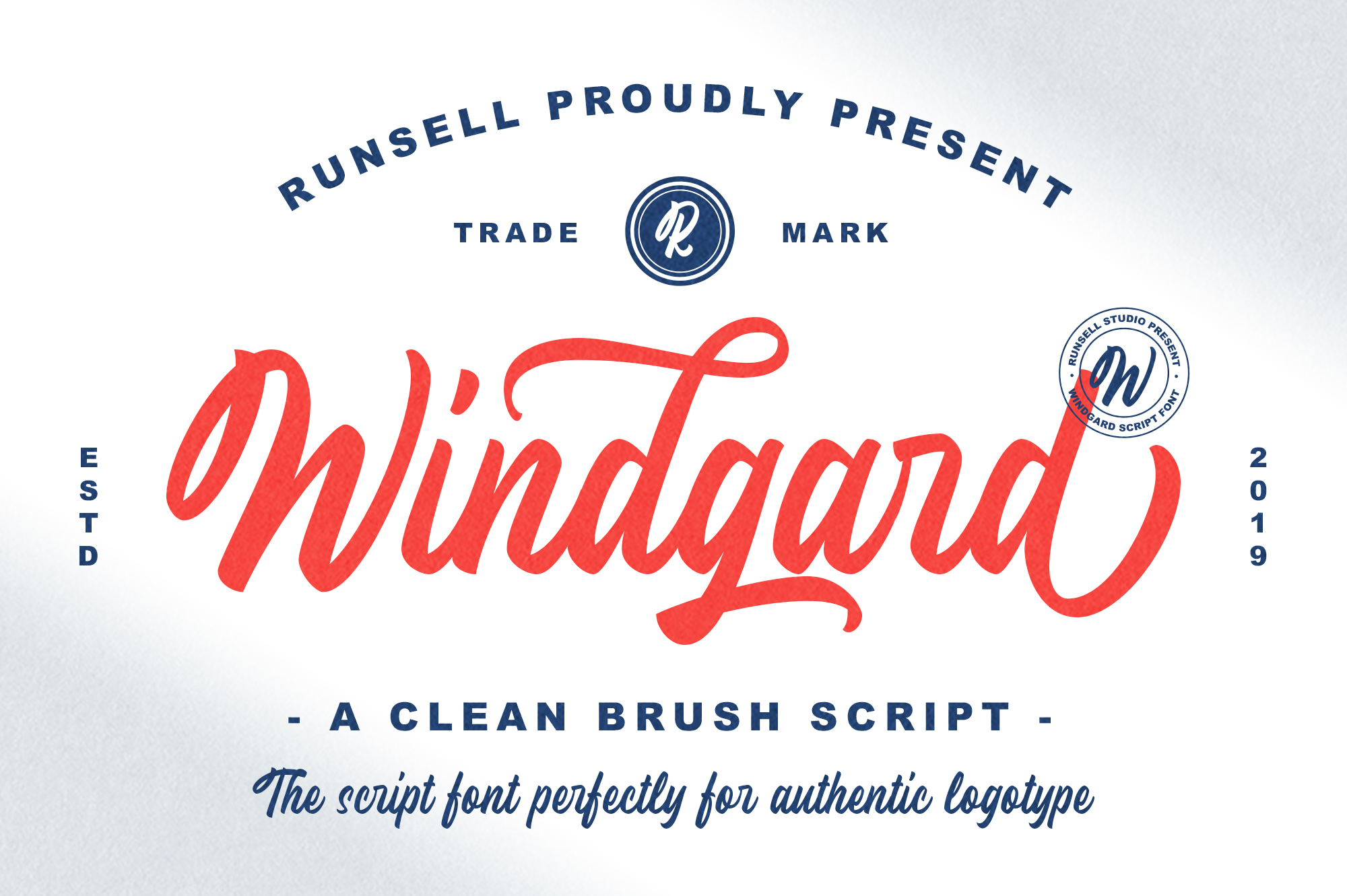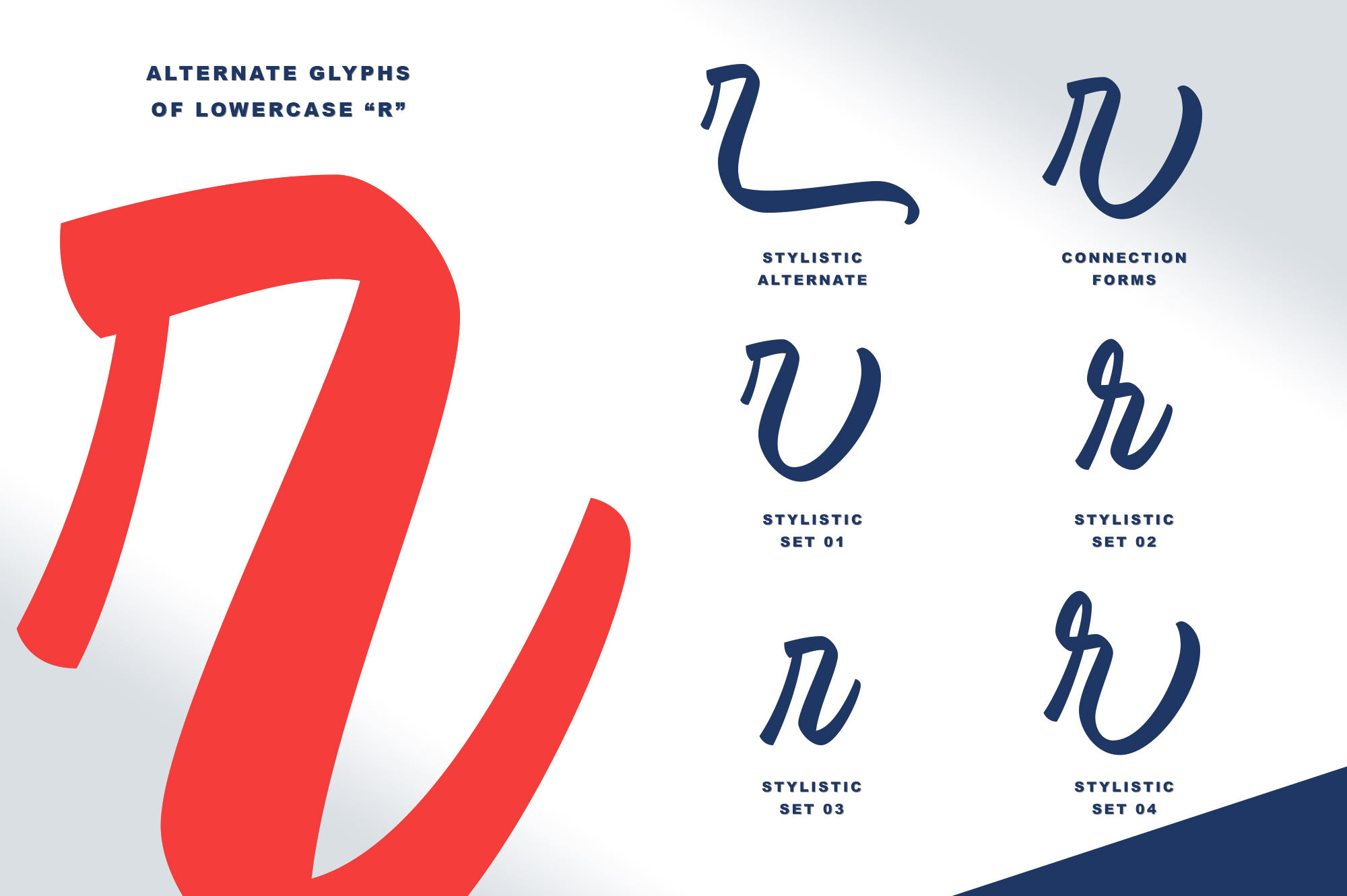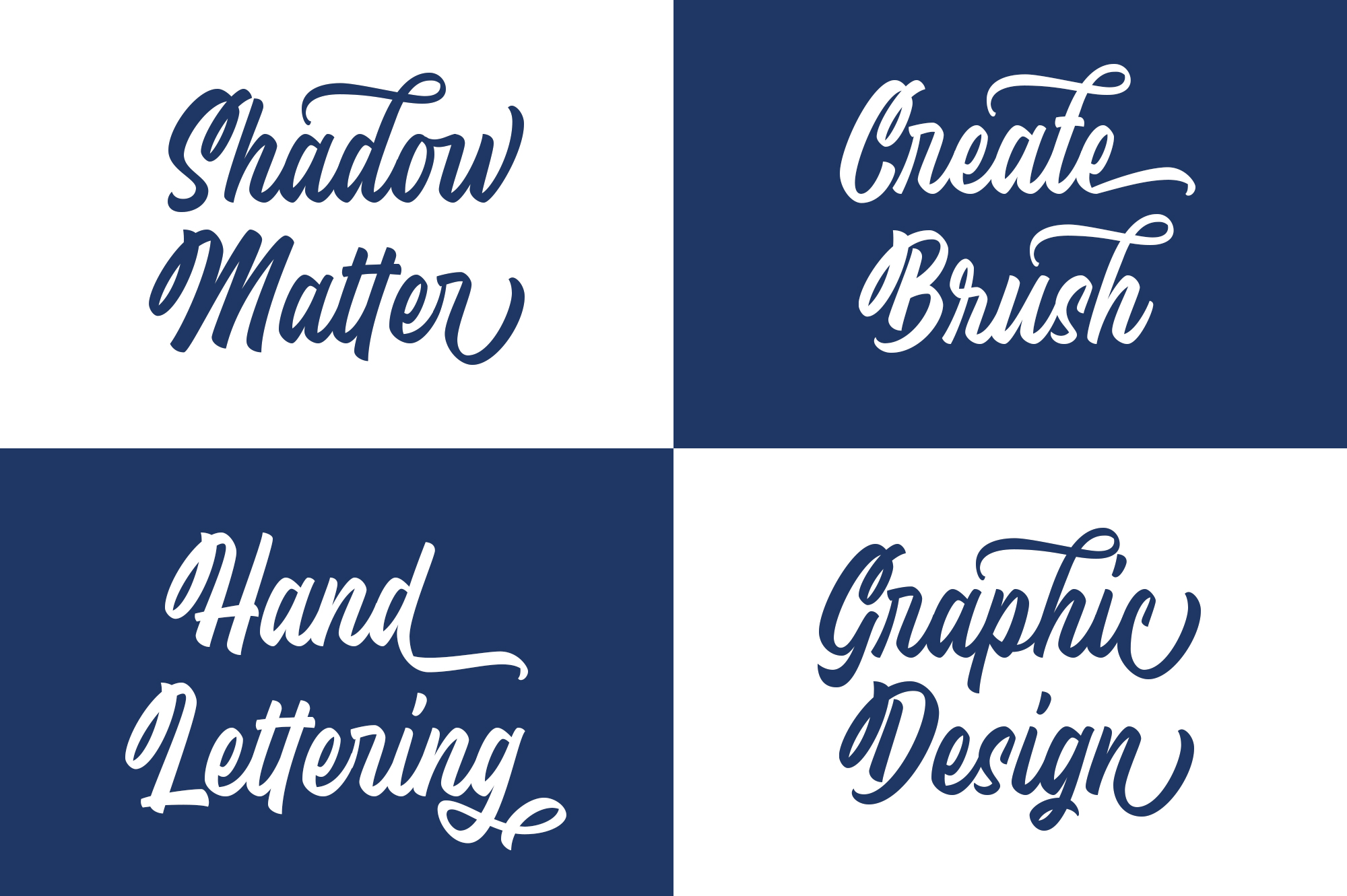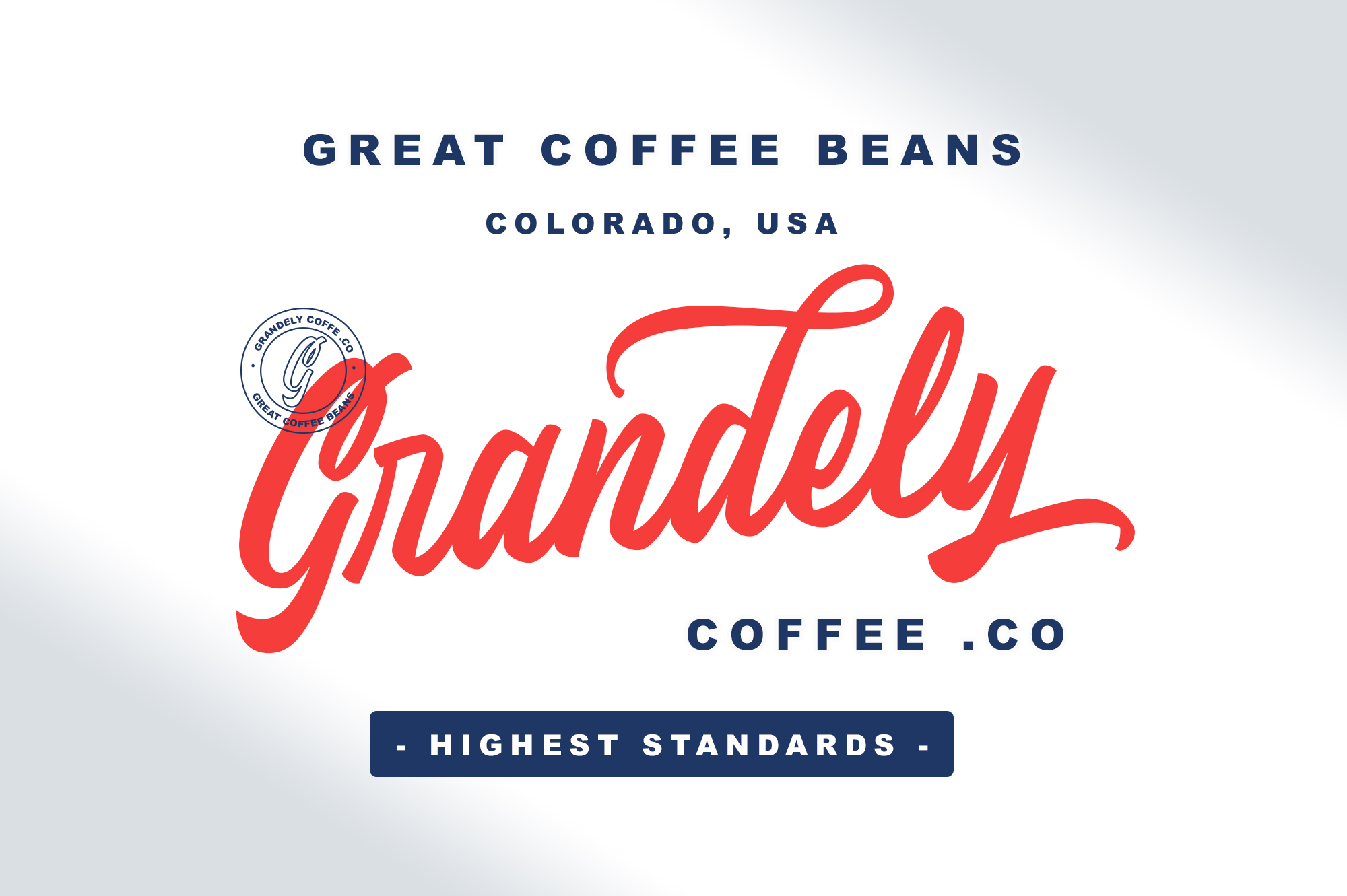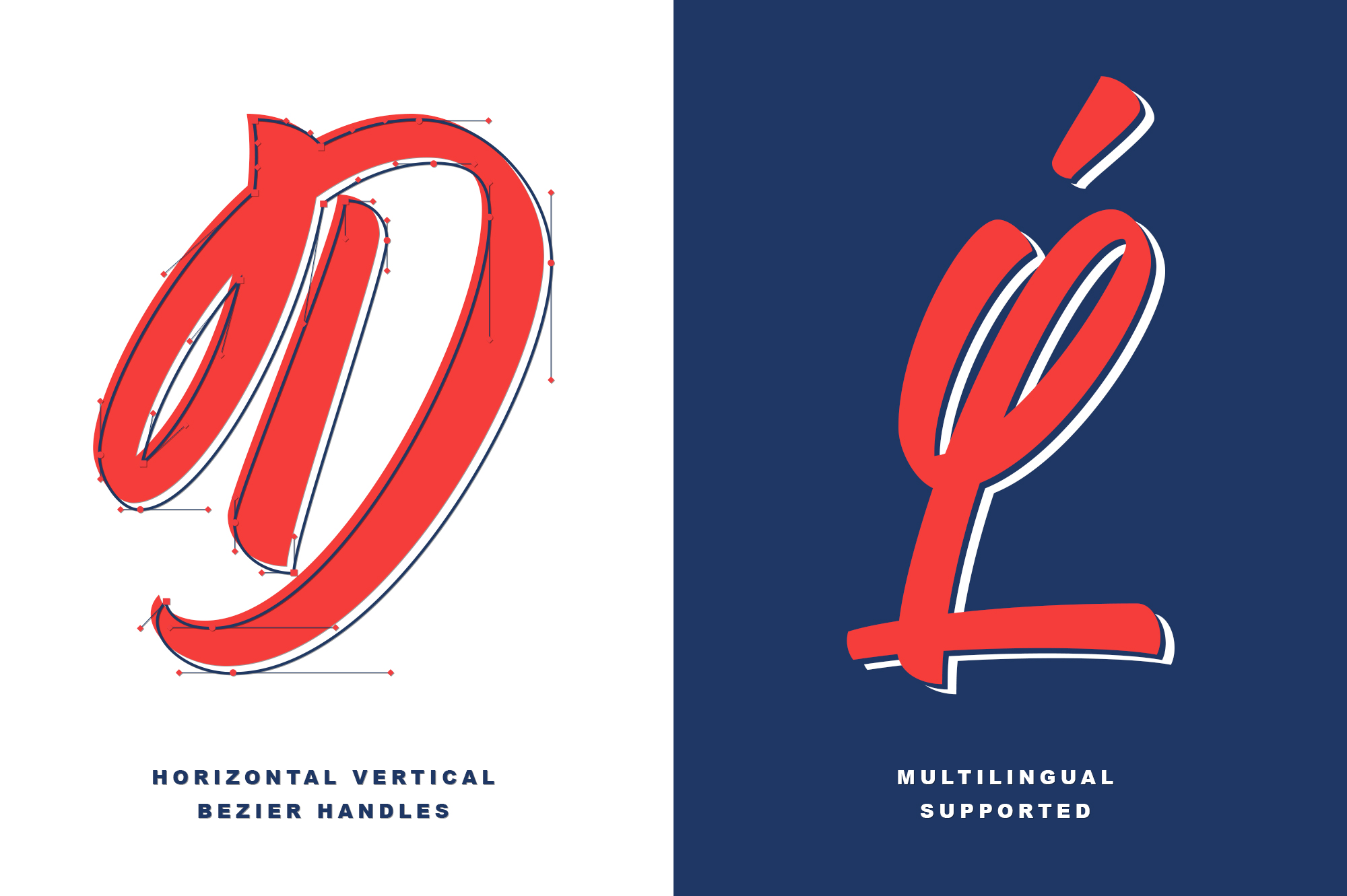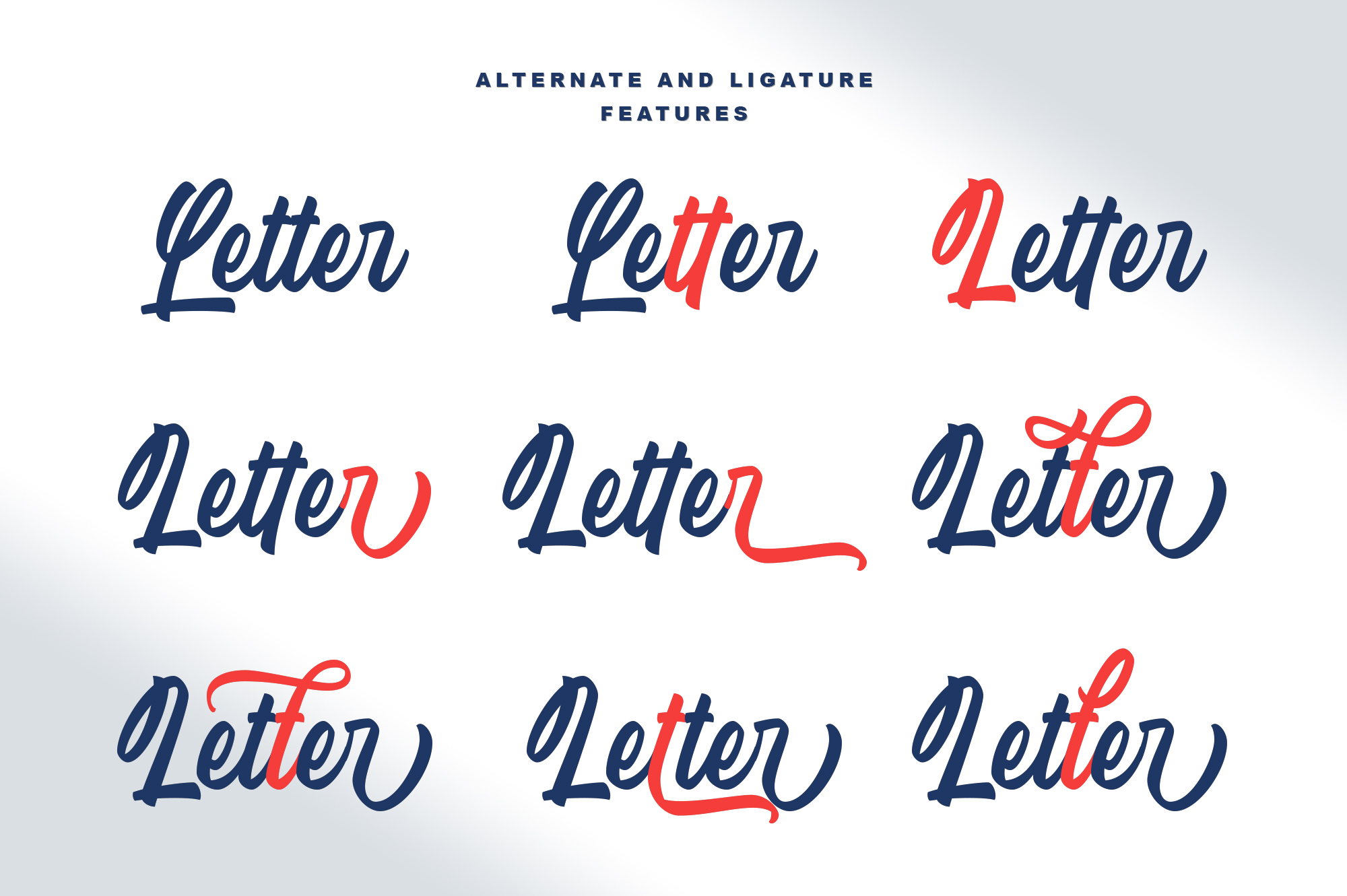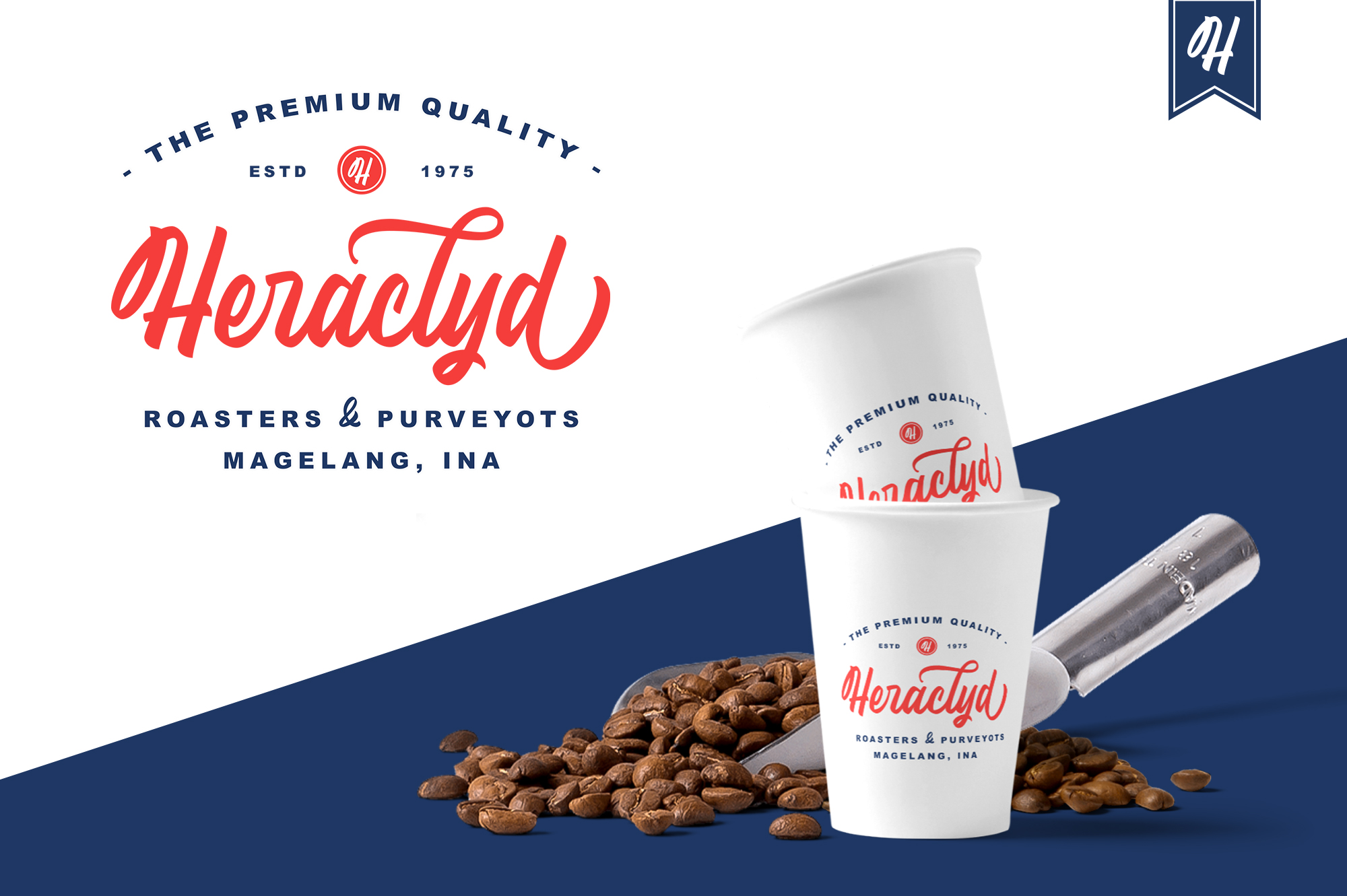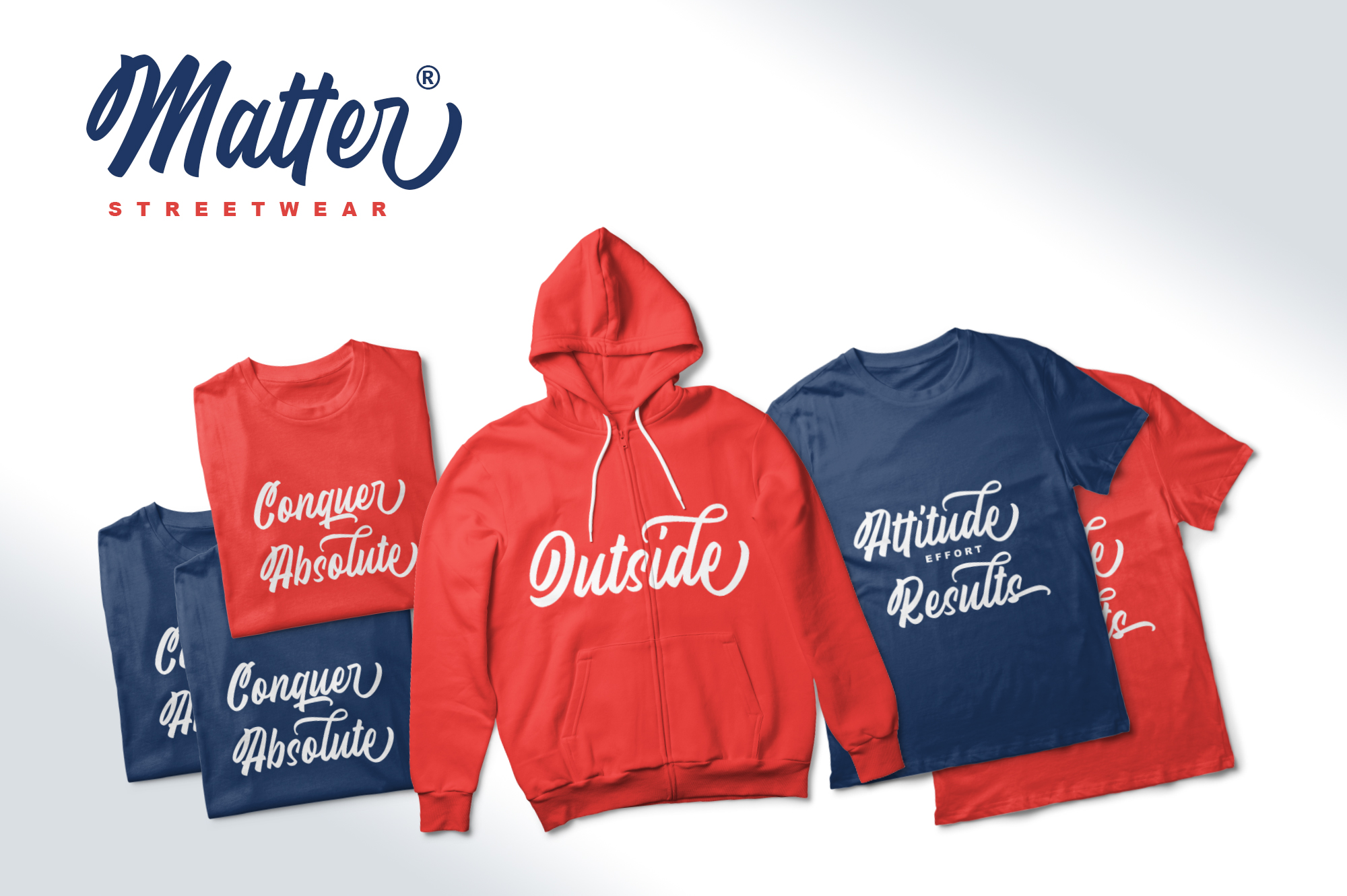
Windgard
Windgard is a clean brush script font designed with a bold personality and effortless flow. Its carefully crafted letterforms offer the perfect balance between handcrafted aesthetics and modern usability. With expressive curves, swashes, and alternate ligatures, Windgard is ideal for branding, logotypes, apparel, coffee packaging, and any design that seeks a dynamic handwritten look.
This font is packed with stylistic sets, multilingual support, and alternate characters to help you fully customize your typography. Whether used for vintage-inspired logos or bold streetwear slogans, Windgard offers versatility without compromising legibility or style. Its fluid strokes and powerful character make it a standout choice for creatives looking to bring authenticity to their work.